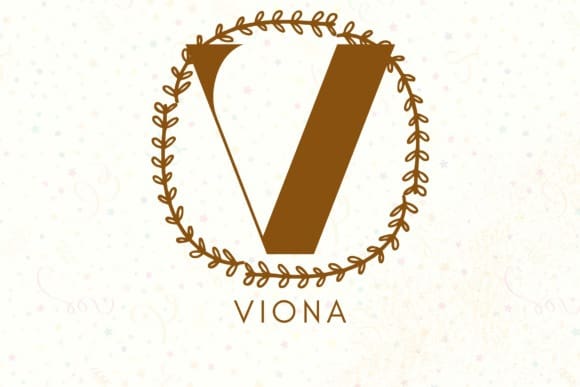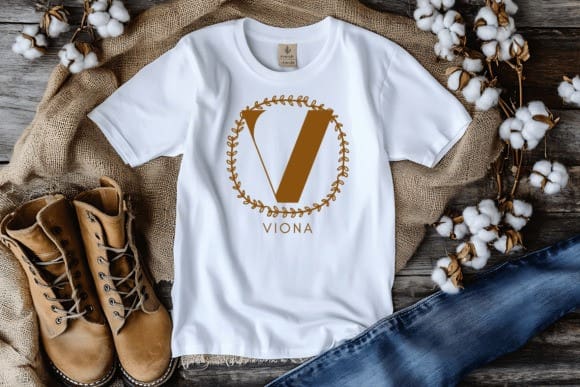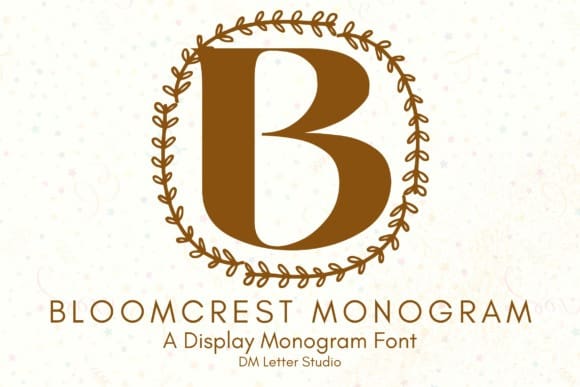
Bloomcrest Monogram Font
Bloomcrest Monogram Font is a refined serif monogram font with graceful curves and floral elegance designed to elevate your personalized creations. Featuring classic serif structure and subtle botanical flair, this font is ideal for luxury branding, wedding monograms, boutique logos, upscale packaging, and timeless gift designs.
The charm of Bloomcrest lies in its simplicity—each uppercase character feels tailored and sophisticated, making your initials or short wordmarks feel like a crafted emblem. Whether you’re customizing wedding invitations, engraving name signs, or designing brand visuals for a floral shop or fashion line, Bloomcrest Monogram brings your work a sense of quiet sophistication and polish.
Inspired by heritage lettering and decorative accents, Bloomcrest suits both modern and classic aesthetics. It can stand alone as a central design element or pair well with clean sans-serif fonts for a balanced look. Its versatility makes it a great choice for Cricut and Silhouette projects, embroidery, and stationery where personalization matters.
Whether you’re creating for yourself or your clients, Bloomcrest Monogram adds timeless elegance to any design.